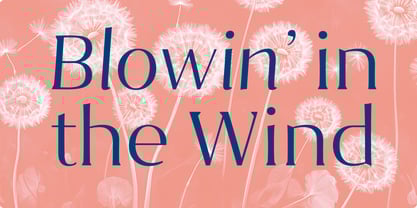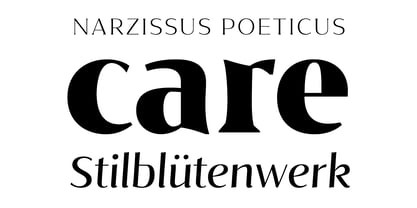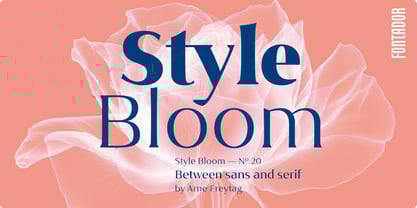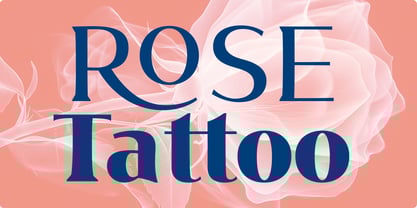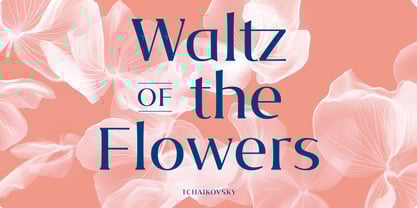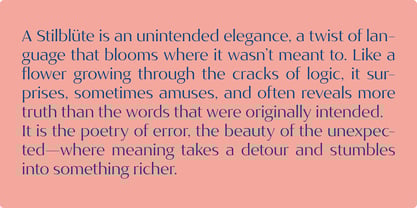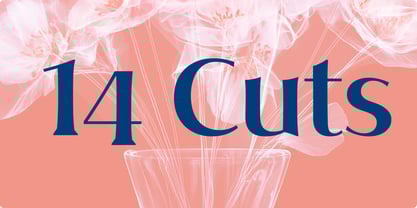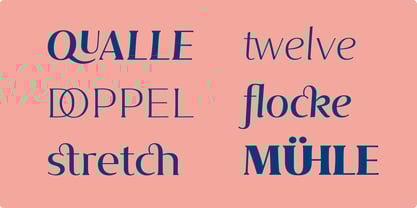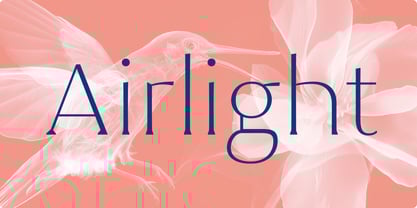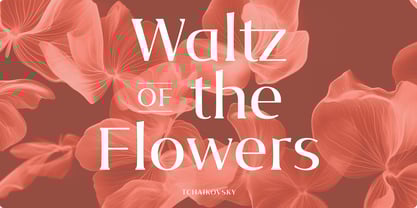
Style Bloom
par Fontador
La famille de polices Style Bloom a été conçue par Arne Freytag et publiée par Fontador. Style Bloom contient 14 styles et options de package familial.
Style Bloom sits somewhere between a sans and a (evil) serif. The extreme contrast between thick and thin strokes, combined with dynamic stems and organic stroke endings, gives the typeface a harmonious and sophisticated appearance.
The terminals of both uppercase and lowercase letters follow an intuitive design approach. Hardly any stroke ends in a perfectly horizontal or vertical line, lending Style Bloom a distinctly calligraphic quality. The large x-height not only provides room for ultra-bold styles but also contributes to an open and generous feel in the narrower and semi-bold weights. With 235 ligatures and extensive Latin language support, Style Bloom offers maximum typographic flexibility. This contemporary semi-serif typeface is perfect for logotypes, branding, magazines, editorial design, and advertising.
Fontador is a small type foundry based in Hamburg, founded by Arne Freytag.¶He was born in Hamburg in 1967. In 1995, he won a scholarship to study Graphic Design at the Kunstschule Alsterdamm art school in Hamburg. As a post graduate in 1998, he attended the Atelier National de Recherche Typographique in Paris. He has published various articles in Tipografica, étapes and the Typografische Monatsblätter. He has been working as a freelance typographic and graphic designer since 2000.